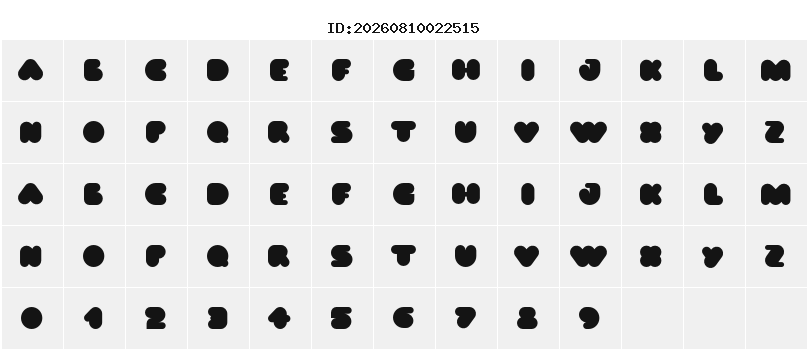
PUFF Preview
• Font Name: PUFF
• Font Style: Black
• Font ID: FSI: PUFF Black: 2011
• Full Font Name: PUFF-Black
• PostScript Name: PUFF-Black
About PUFF.otf
PUFF.otf is a modern, elegant sans-serif font designed for ultimate readability and visual harmony. Perfect for branding, headlines, web design, and print materials.